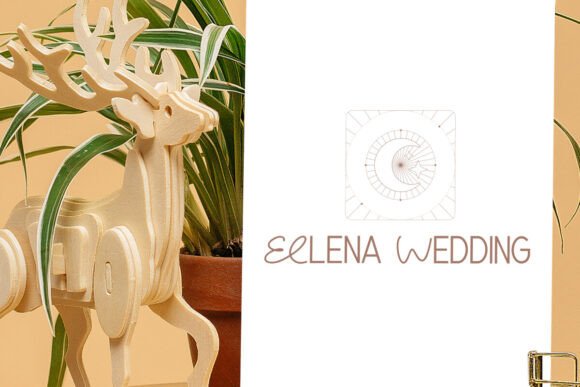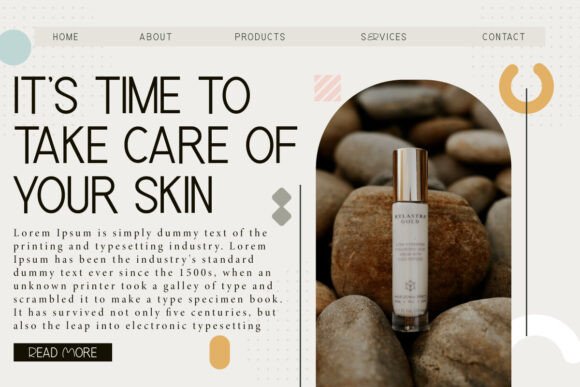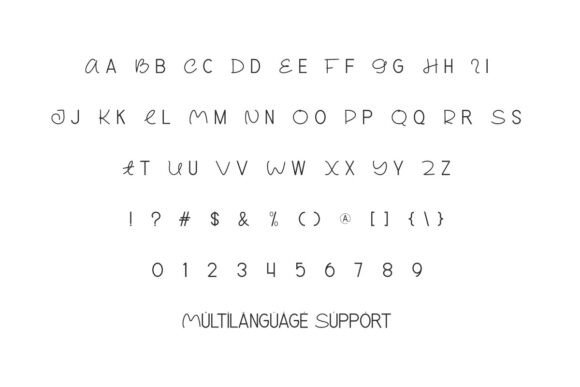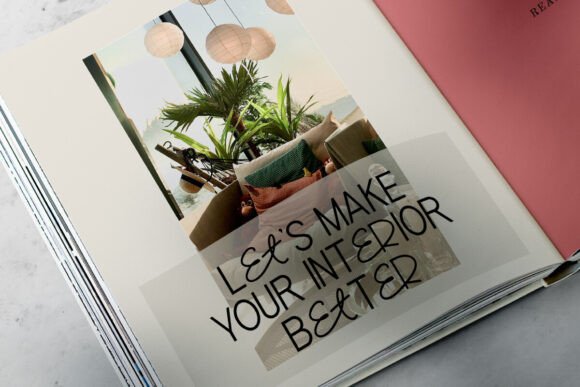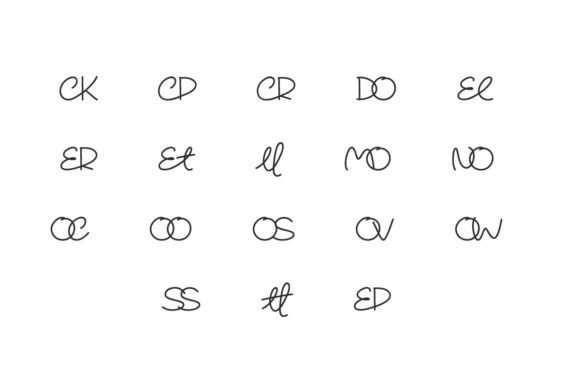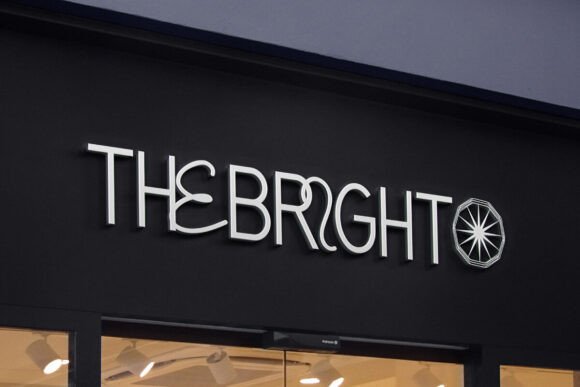
Introduction to Bright Toon Font
Bright Toon Font is a fun and unique display font duo.
The font has a combination of Minimalist Serif display and classy signature on its uppercases This font consists of Script and Sans Serif font types, which both have a simple and elegant style.